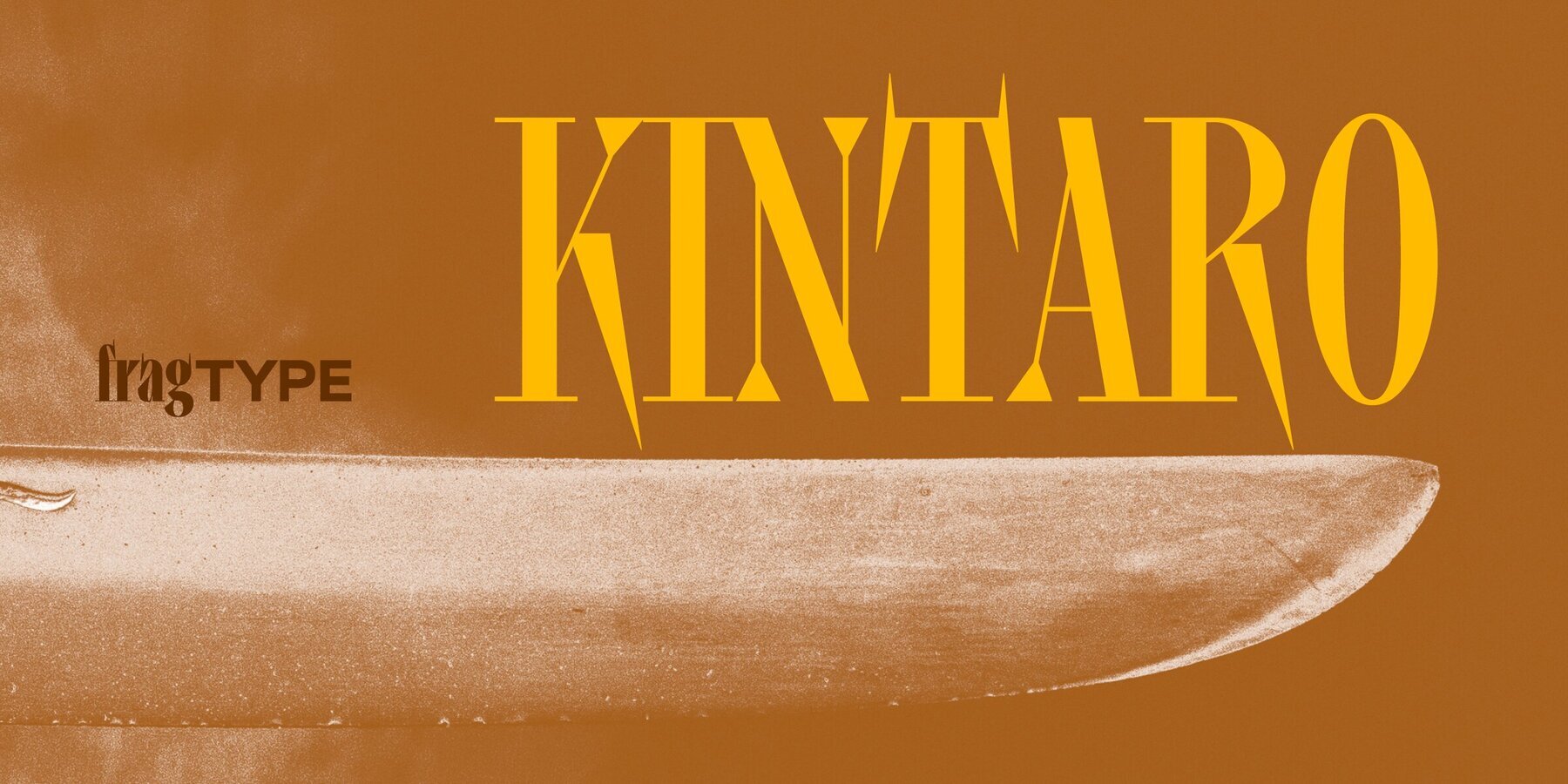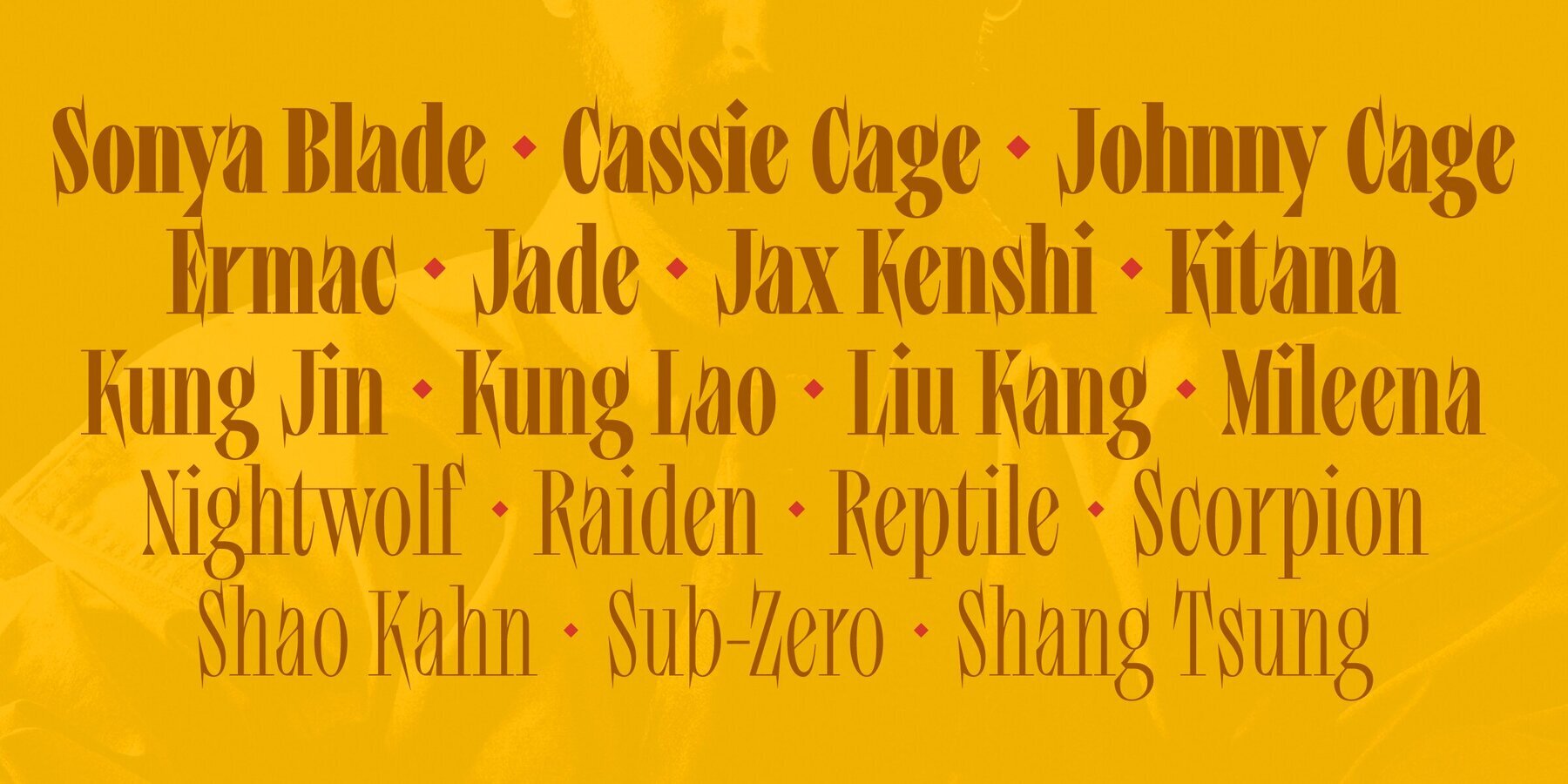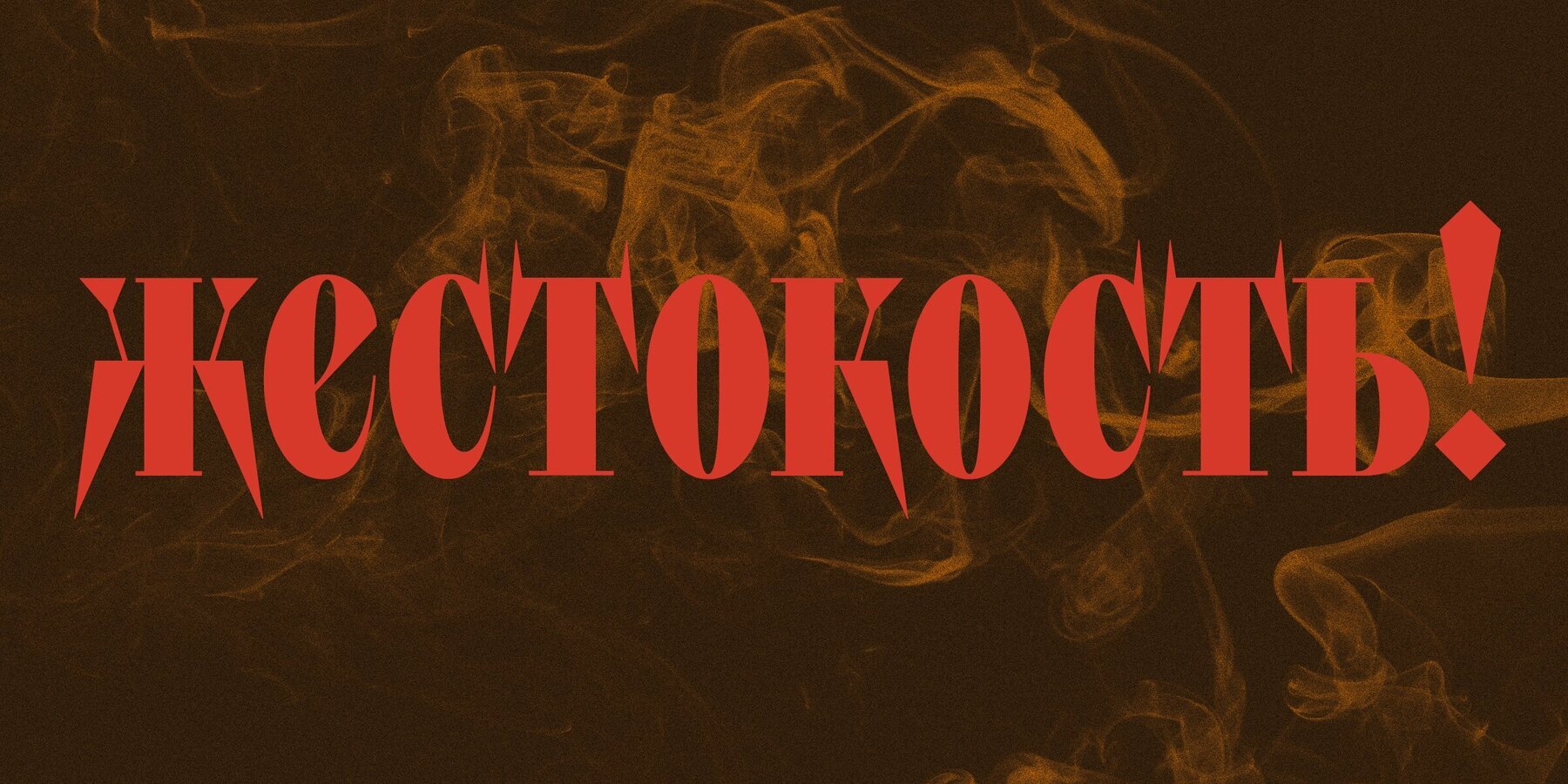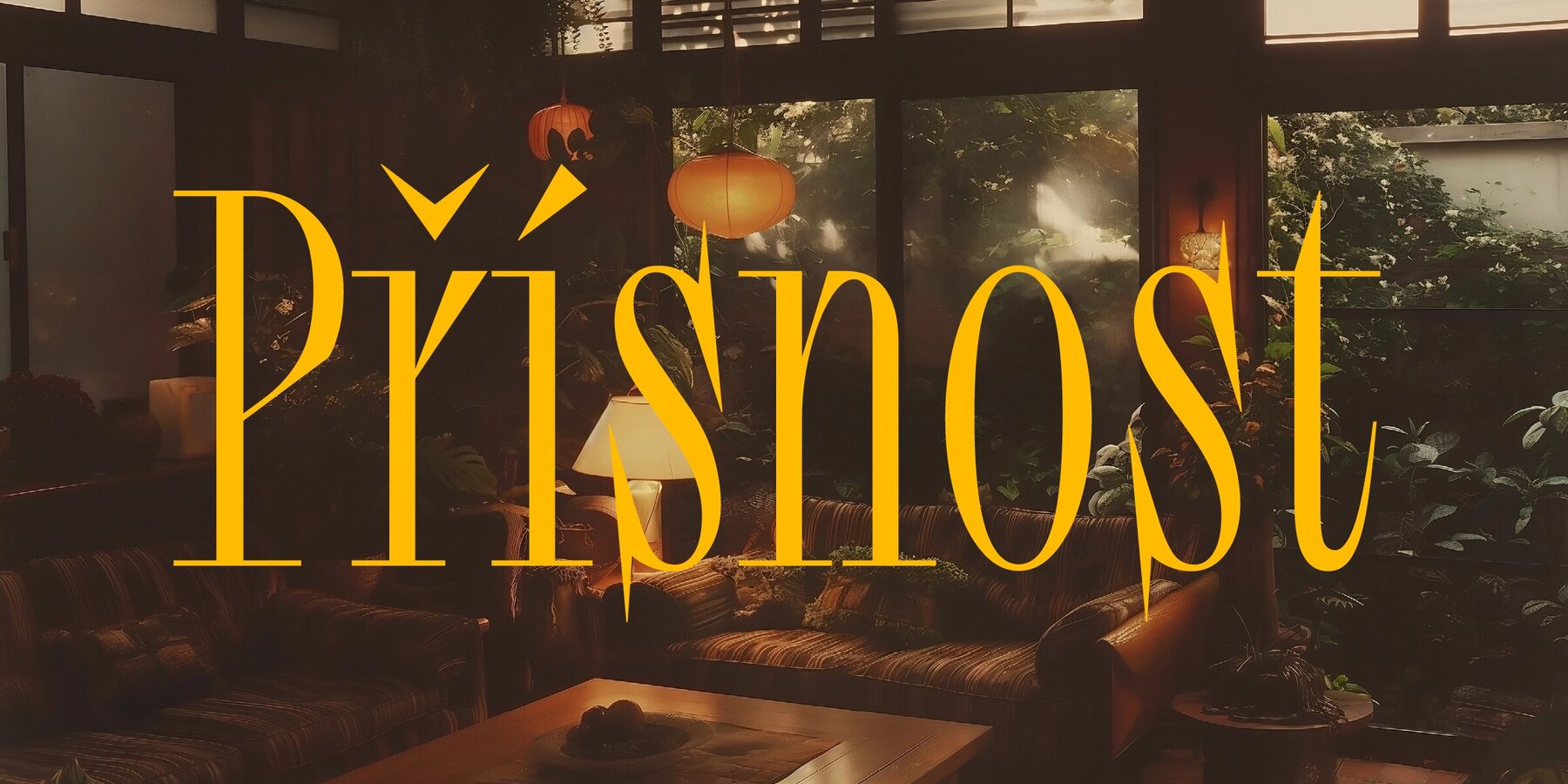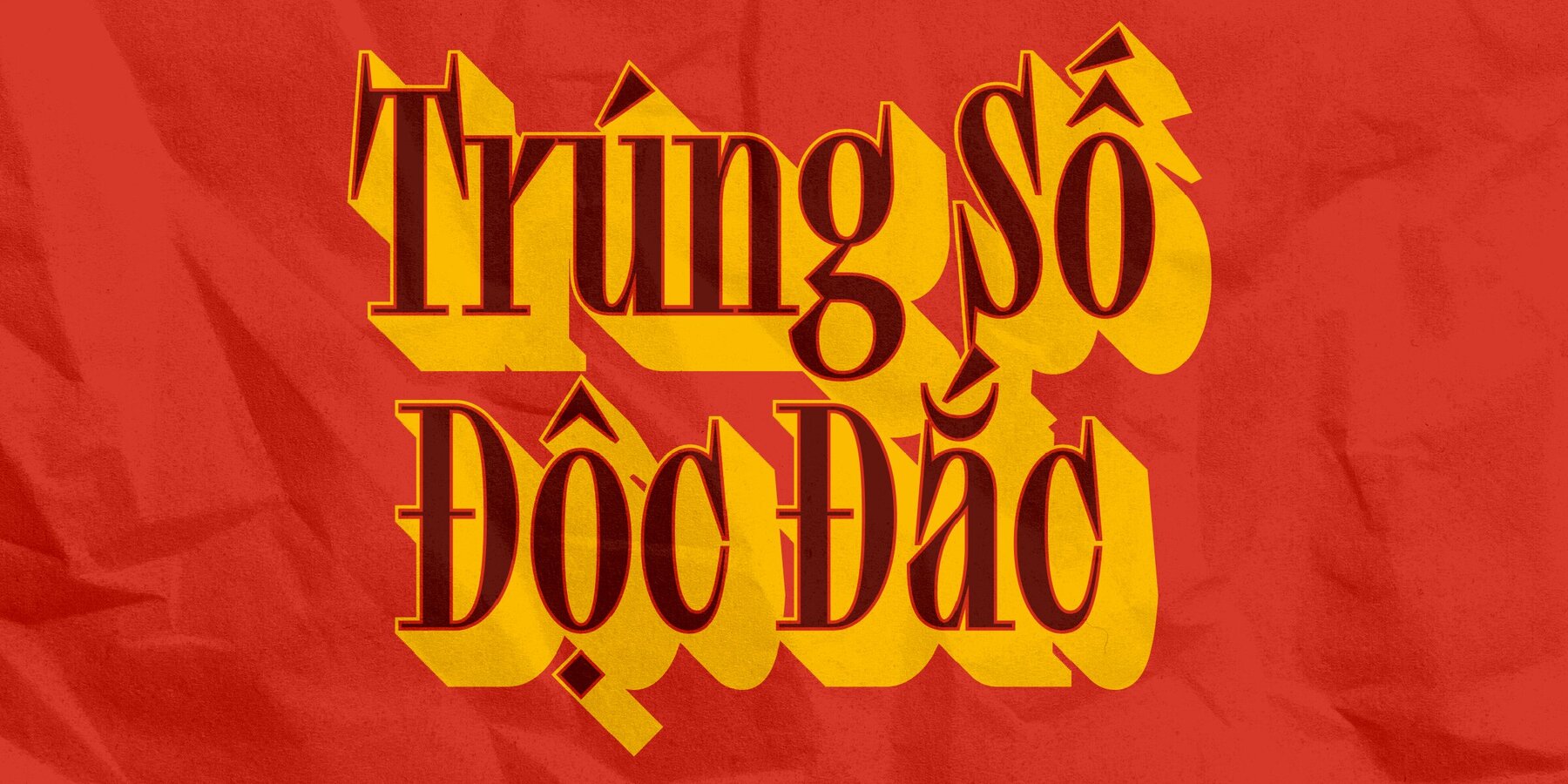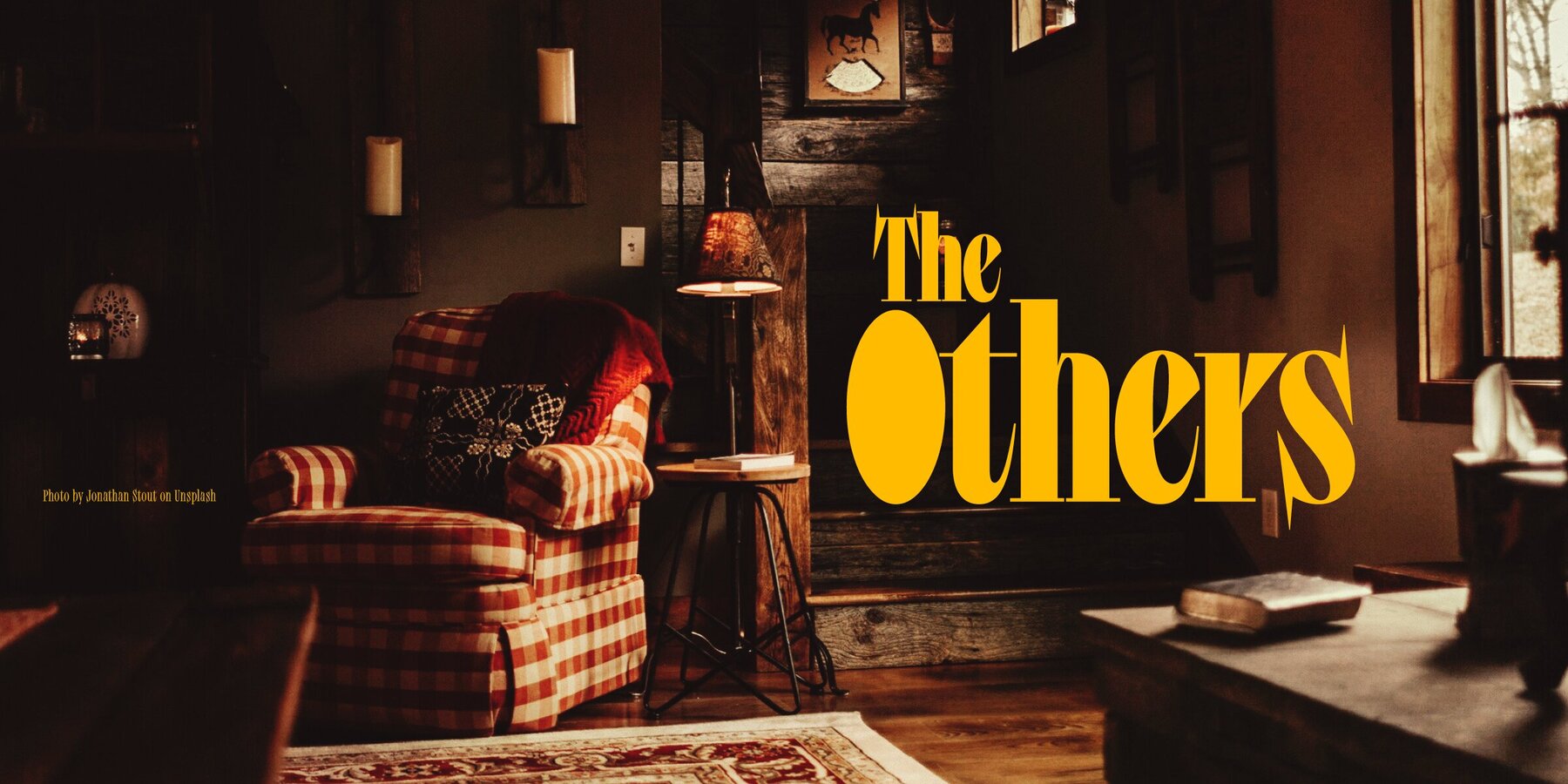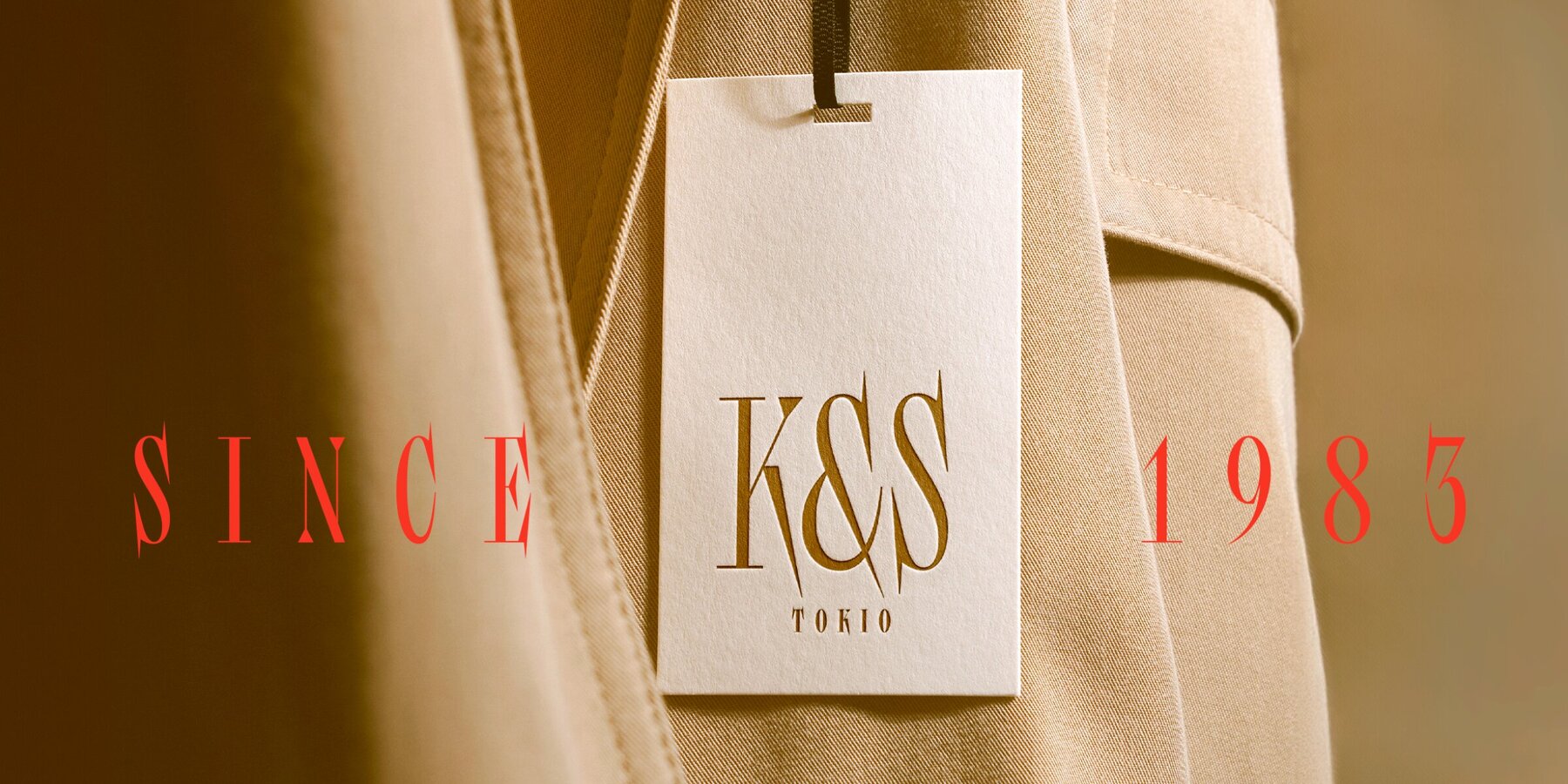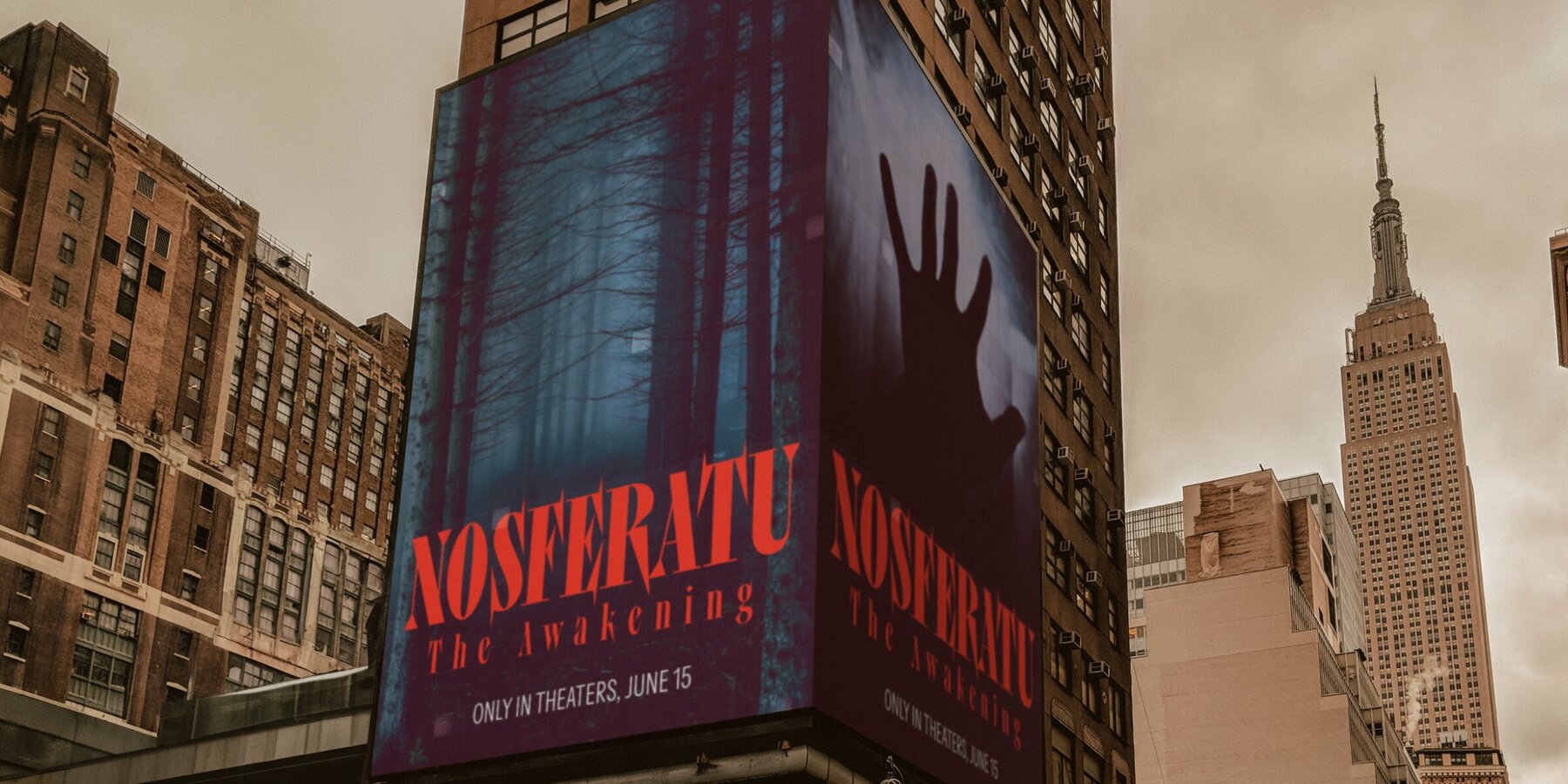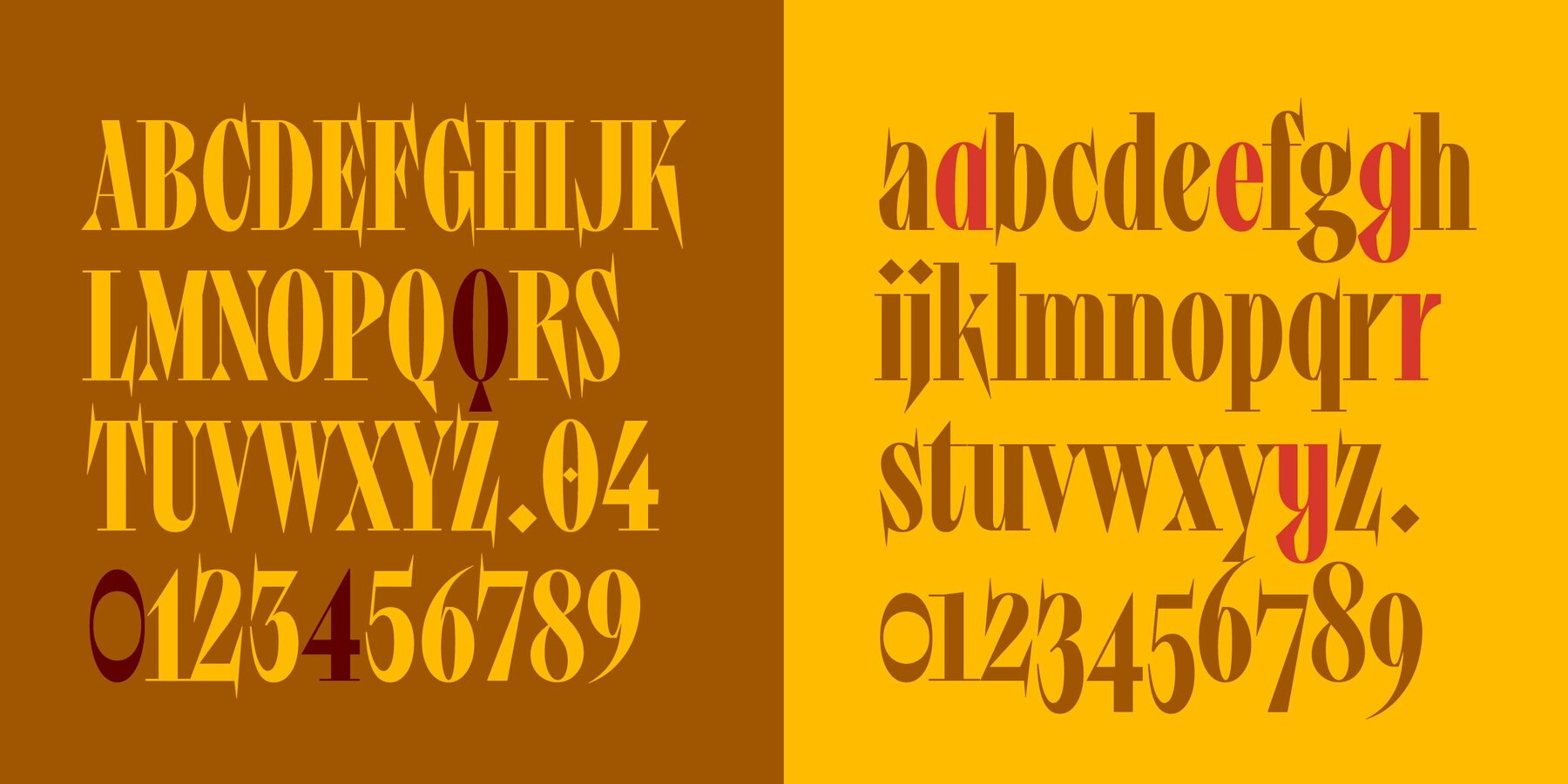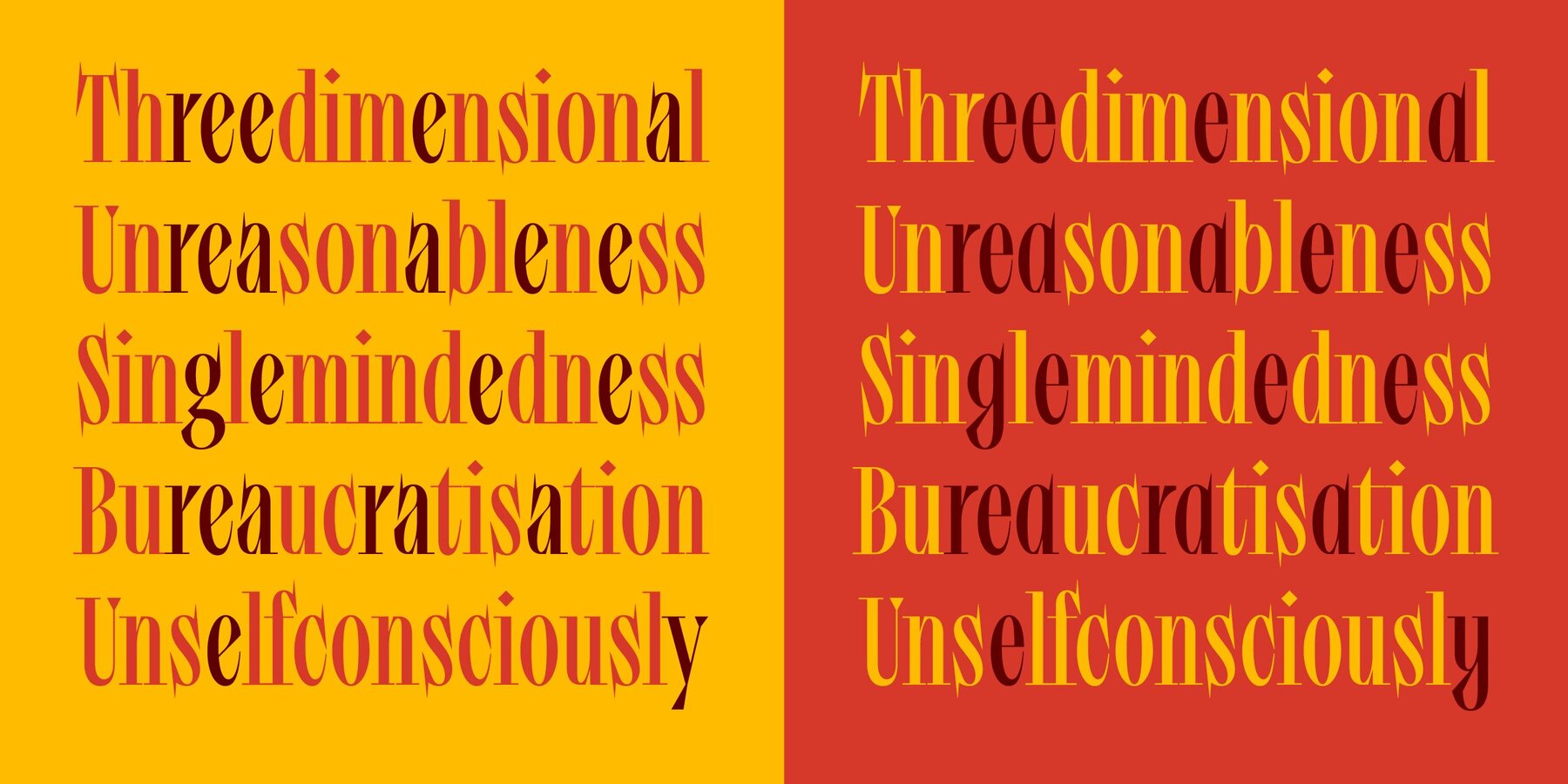
Kintaro Font
Pulled from our grainy memories of the hours we sank into Mortal Combat, Kintaro is our newest release at that will have you mashing your keyboard just to see each character. Broadly inspired by the combat arenas of Mortal Combat, like the infamous "The Pit", Kintaro is as sharp and as angular as low-res renderings of these from our youth. Built for headlines, is a graphic, condensed serif that supports extended Latin and Cyrillic. At first glance the font family appears sharp and spiky, however it does have a soft side. With its mix of soft curves and abrupt angles, Kintaro stands out in a crowded genre of didones and slabs. The exaggerated serifs mixed with the smooth rounds create eye catching forms within the type family. This font family offers 6 weights to fight for you in your next project, from an agile Light all the way to an imposing Black. Customise your text with Kintaro’s alternate characters for a combo that hits hard in any situation.